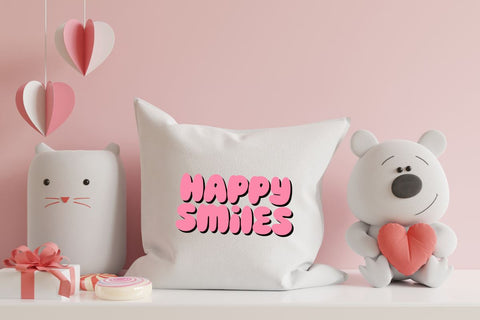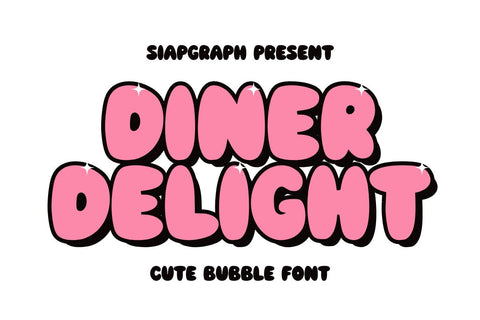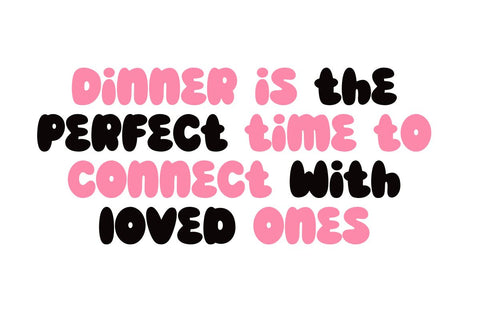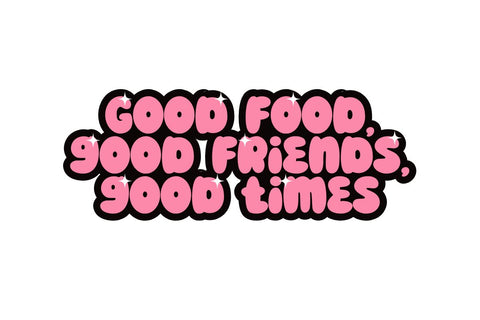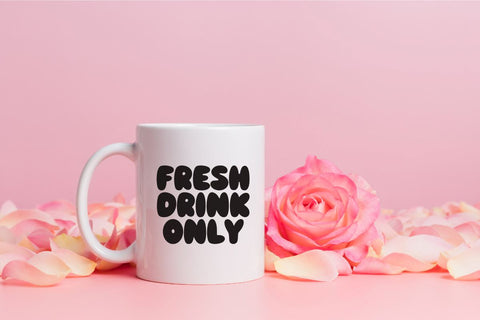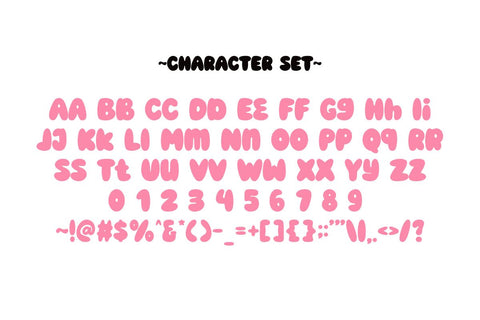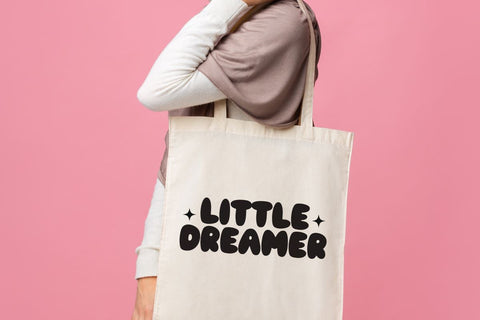
Diner Delight - Cute Bubble Font
Diner Delight is a playful bubble font perfect for adding a touch of retro fun to your designs. With its rounded, bouncy letters and cheerful style, this font is ideal for creating nostalgic designs for food menus, branding, and more.